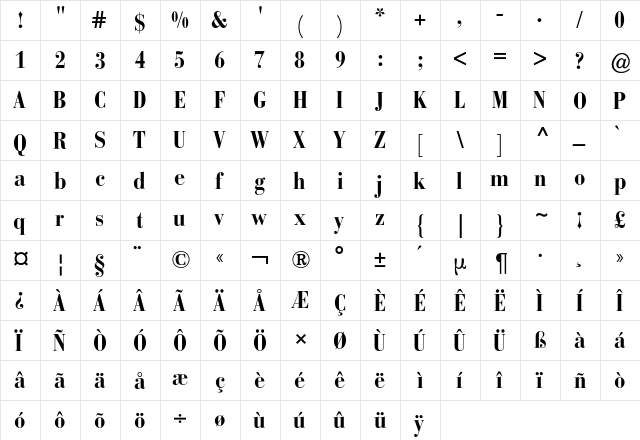
Bodoni Bauer BQ Regular
Design Context for Bodoni Bauer BQ Typeface
Bodoni Bauer BQ is a composed and adaptable typeface that performs quietly and consistently across a wide range of design contexts.